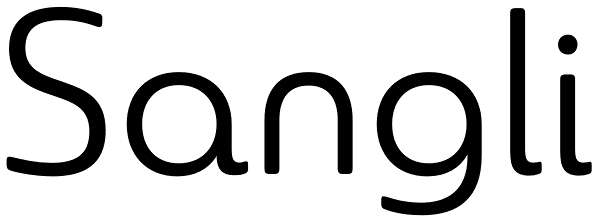
Sangli
It started in 2007 with Chennai, the first of a three-part series of sans that I envisioned with slab serif counterparts. Each font would differ from the others in how the stem terminals were expressed. The initial font was extremely well received...